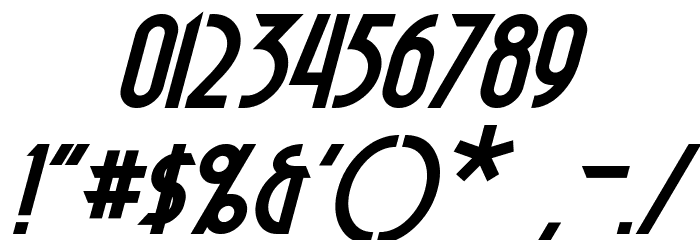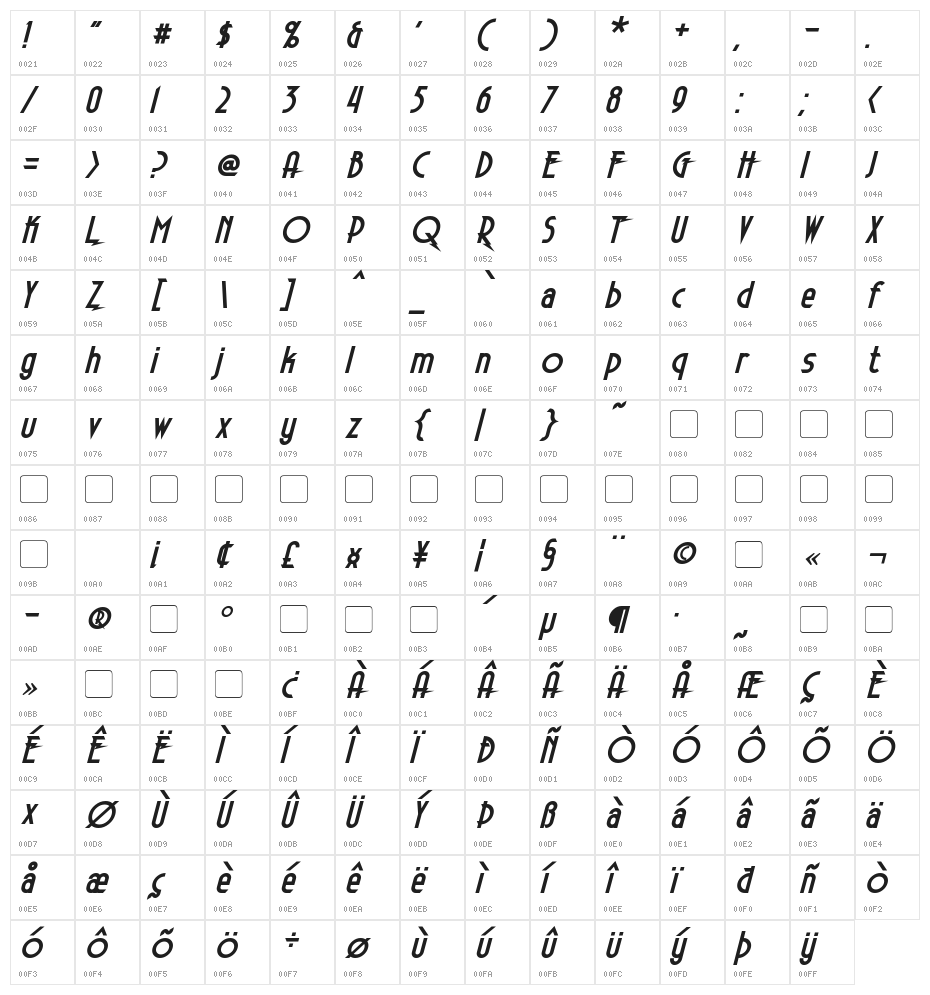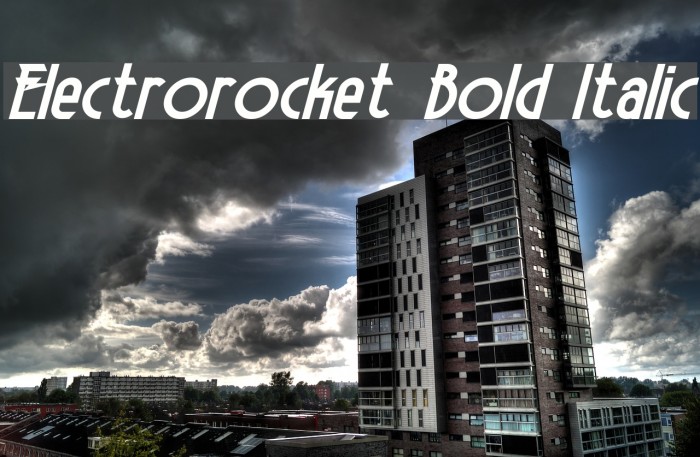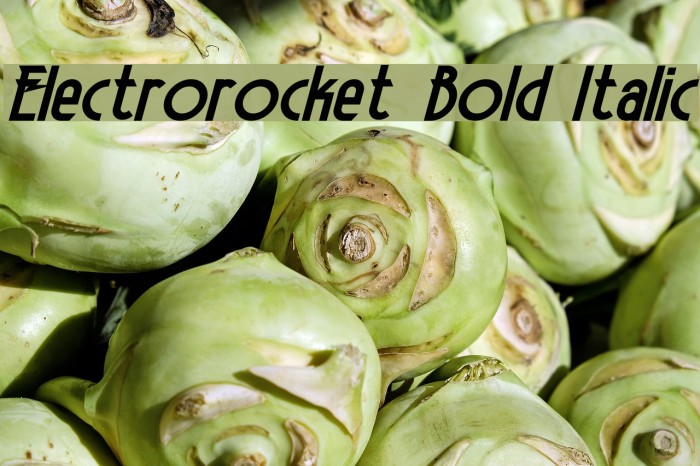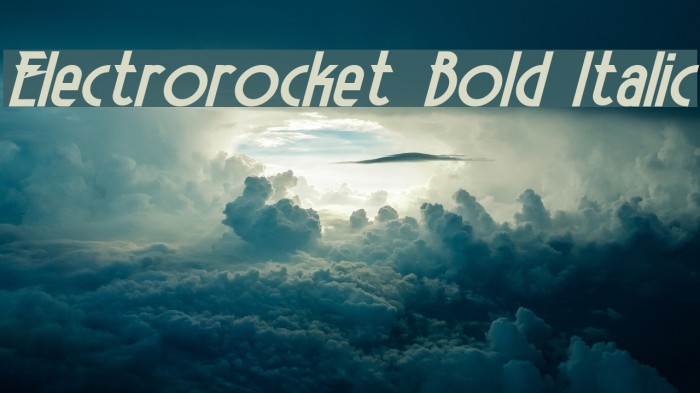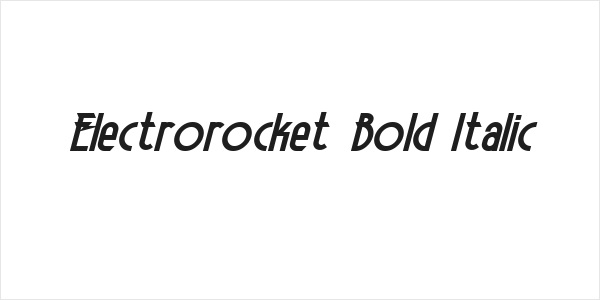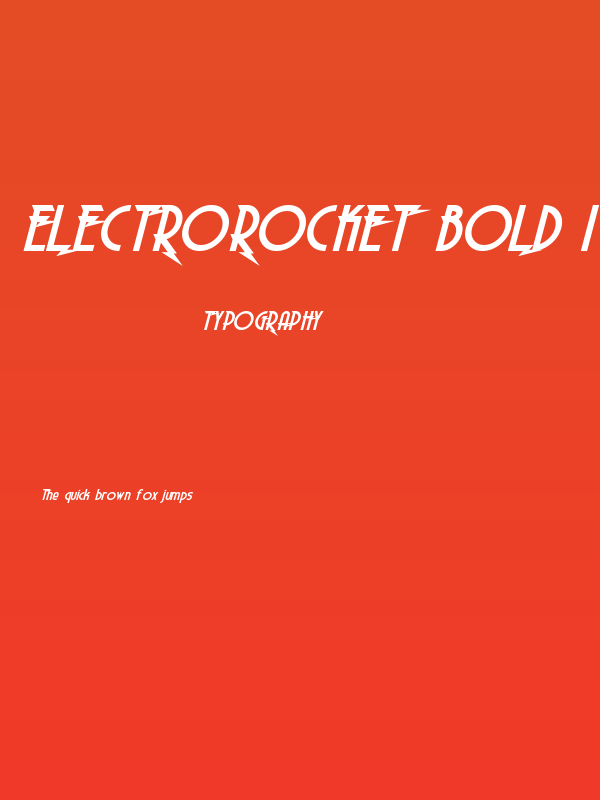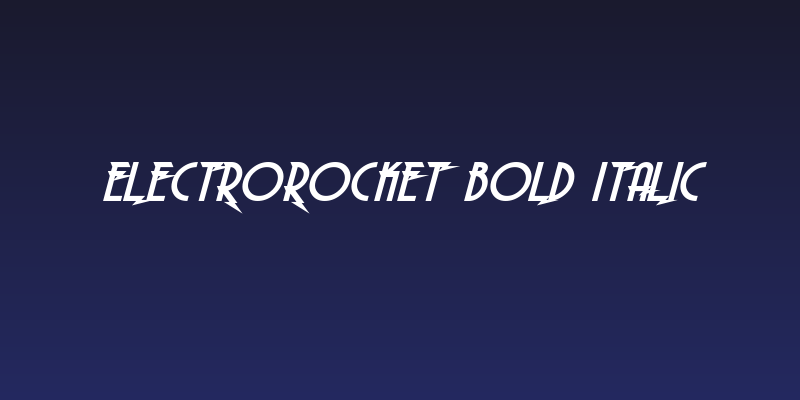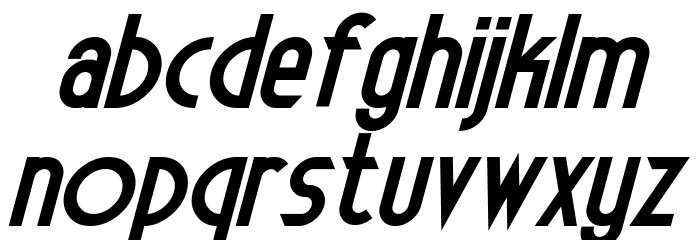
Electrorocket Bold Italic Font
Electrorocket Bold Italic Description
This dynamic and energetic font features bold, italicized characters with sharp angles and a futuristic flair. The uppercase letters are particularly striking, with unique lightning bolt-like extensions that add a sense of movement and excitement. The lowercase letters maintain a consistent style, offering a cohesive look across different text sizes. Numbers and special characters are designed to match the bold and italicized nature of the alphabet, ensuring uniformity throughout. The font's distinct style makes it ideal for projects that require a modern and edgy aesthetic.
Proposed ProjectsIdeal for sci-fi themed projects, technology branding, video game titles, and dynamic posters.